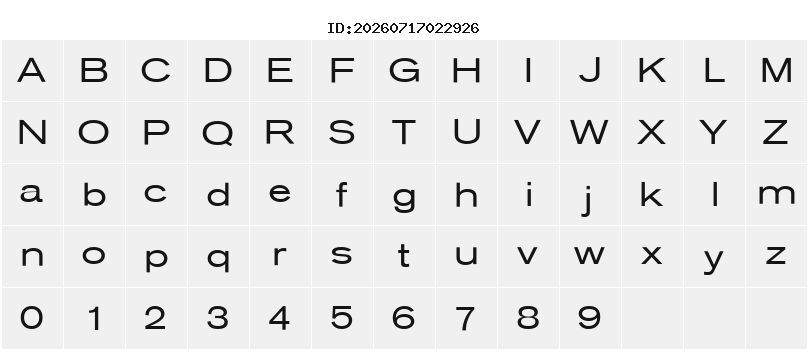
• Font Name: Sh Ad Grotesk Extended
• Full Font Name: *AD Grotesk Ext.
About Sh Ad Grotesk Extended.ttf
Sh Ad Grotesk Extended.ttf is a modern, elegant sans-serif font designed for ultimate readability and visual harmony. Perfect for branding, headlines, web design, and print materials.